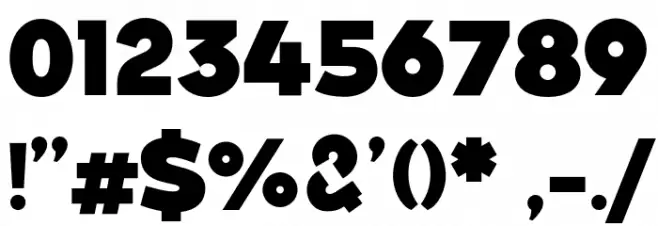
Along Sans s2 Heavy Font
Along Sans s2 Heavy Description
This font features a bold and striking design with a modern sans-serif style. The characters are heavy and geometric, with sharp angles and clean lines that convey a sense of strength and stability. The uppercase letters are particularly bold, while the lowercase letters maintain a consistent weight, offering a harmonious balance. The numerals are equally robust, ensuring they stand out in any context. Special characters are designed with the same boldness, making them perfect for attention-grabbing headlines or impactful logos.
A bold, modern sans-serif font with geometric shapes and strong lines from Uncategorized fonts.